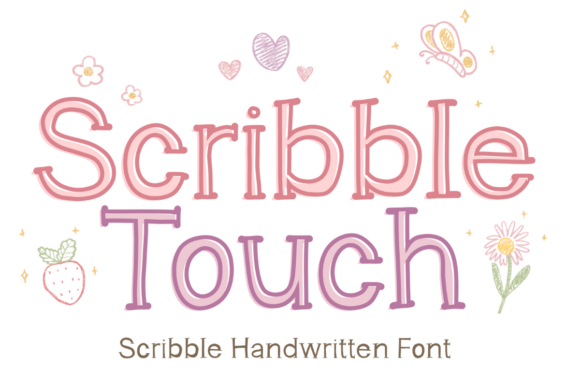
Scribble Touch Font: Adding a Personal Touch to Your Designs
In the world of digital design, fonts play a crucial role in conveying the tone and personality of a brand or project. When it comes to creating a friendly and approachable vibe, a handwritten font can be the perfect choice. This is where Scribble Touch comes in – a playful and expressive handwritten font that brings a natural, sketch-like feel to your designs.
What is Scribble Touch?
Scribble Touch is a fun and charming handwritten font that captures the essence of casual doodles and creative handwriting. With its loose strokes and imperfections, this font adds a personal touch to any design, making it perfect for a wide range of projects. Whether you’re designing for school resources, cute branding, or fun DIY projects, Scribble Touch is the ideal choice.
Key Features of Scribble Touch
• Hand-drawn, playful strokes: Scribble Touch features hand-drawn strokes that give it a natural and playful feel.
• Smooth and easy to read: Despite its playful nature, Scribble Touch is smooth and easy to read, making it perfect for body text and headings.
• Perfect for crafts, quotes, and digital notes: This font is ideal for crafts, quotes, and digital notes, adding a personal touch to your creations.
• Great for kids’ projects and creative storytelling: Scribble Touch is a great choice for kids’ projects and creative storytelling, making learning fun and engaging.
Uses of Scribble Touch
Scribble Touch is a versatile font that can be used in a wide range of projects, including:
• Greeting cards: Add a personal touch to your greeting cards with Scribble Touch, making them stand out from the crowd.
• Planners and journals: Use Scribble Touch to create fun and engaging planners and journals that inspire creativity.
• Social media posts: Add a playful touch to your social media posts with Scribble Touch, making them more engaging and shareable.
• Educational materials: Use Scribble Touch to create engaging and interactive educational materials that make learning fun.
Benefits of Using Scribble Touch
Using Scribble Touch in your designs offers several benefits, including:
• Personal touch: Scribble Touch adds a personal touch to your designs, making them more relatable and engaging.
• Creativity and playfulness: This font inspires creativity and playfulness, making it perfect for projects that require a fun and imaginative approach.
• Versatility: Scribble Touch is a versatile font that can be used in a wide range of projects, from digital designs to print materials.
Tips for Using Scribble Touch
Here are some tips for using Scribble Touch effectively in your designs:
• Use it for headings and titles: Scribble Touch is perfect for headings and titles, adding a playful touch to your designs.
• Mix it with other fonts: Experiment with pairing Scribble Touch with other fonts to create a unique and interesting design.
• Adjust the size and color: Play around with the size and color of Scribble Touch to create a design that’s visually appealing.
Scribble Touch is a fun and expressive handwritten font that brings a natural, sketch-like feel to your designs. With its loose strokes and charming imperfections, this font is perfect for adding a personal touch to a wide range of projects. Whether you’re designing for school resources, cute branding, or fun DIY projects, Scribble Touch is the ideal choice. So why not give it a try and see how it can add warmth and personality to your creations?
• What is Scribble Touch?: Scribble Touch is a playful and expressive handwritten font that captures the essence of casual doodles and creative handwriting.
• Is Scribble Touch easy to read?: Yes, Scribble Touch is smooth and easy to read, making it perfect for body text and headings.